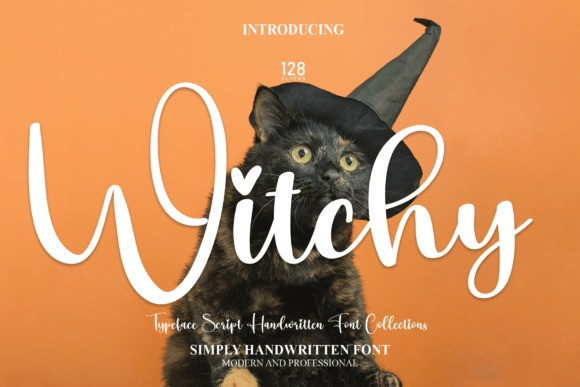
Witchy Script Font
Witchy Script Font is a stylish Font Style. This beautiful script font offers your personal touch to your latest art project with an elegant, classy, and modern look.